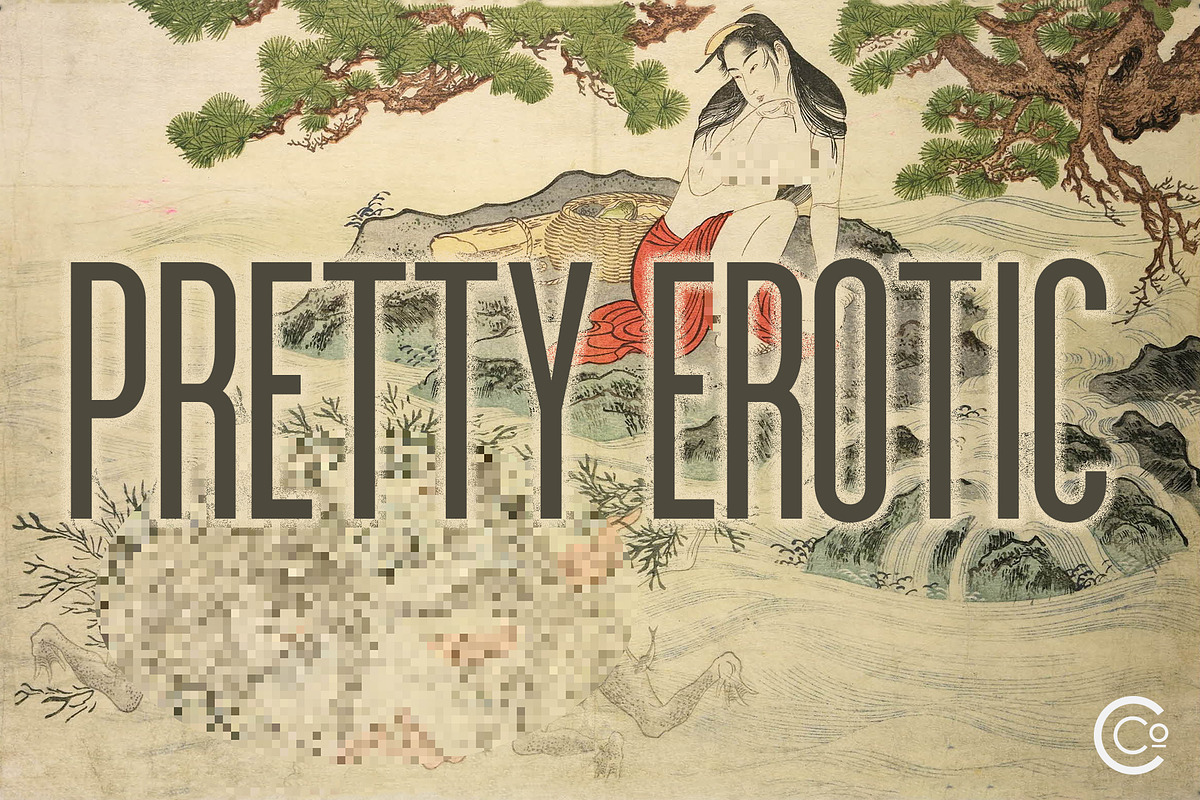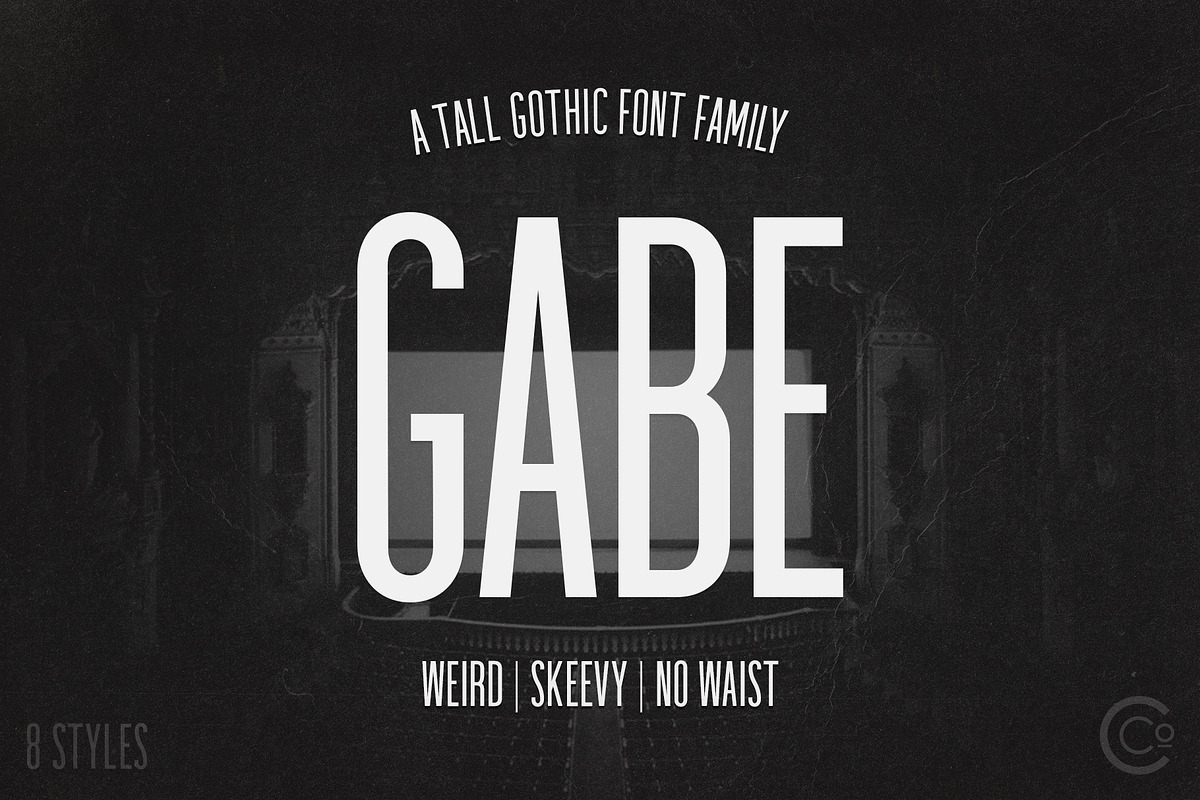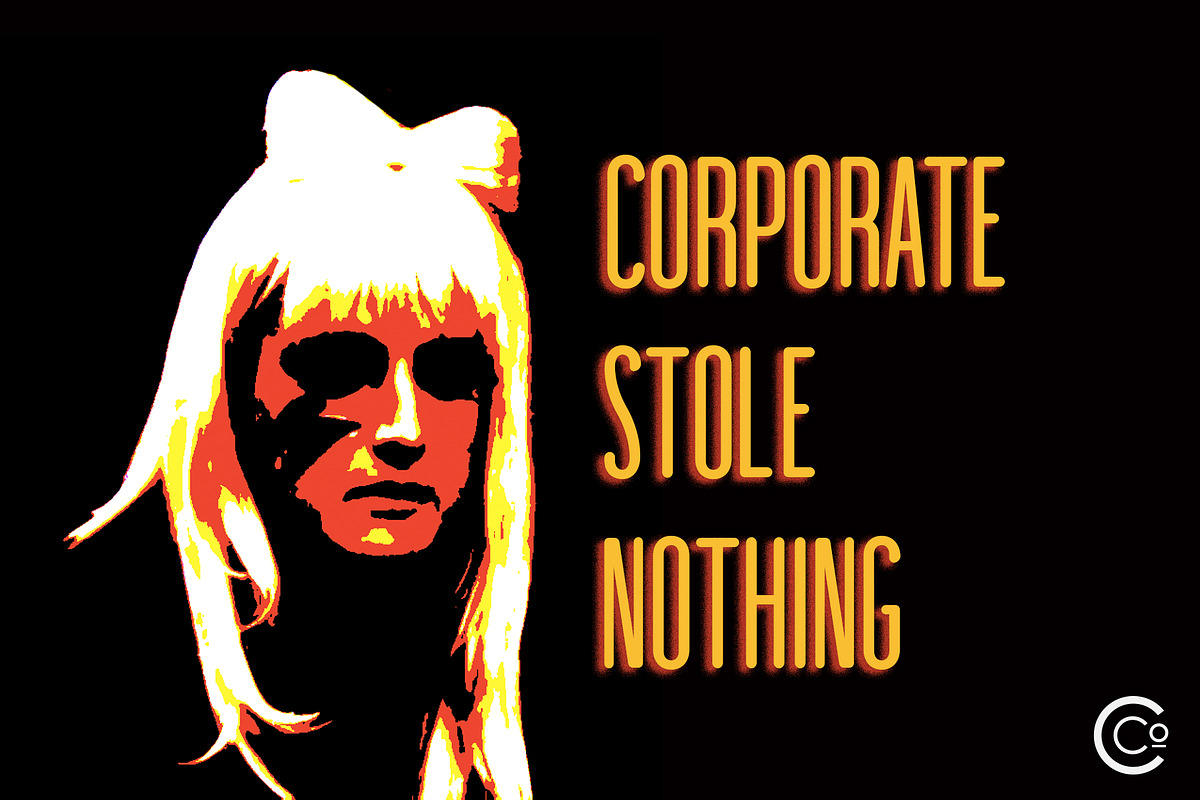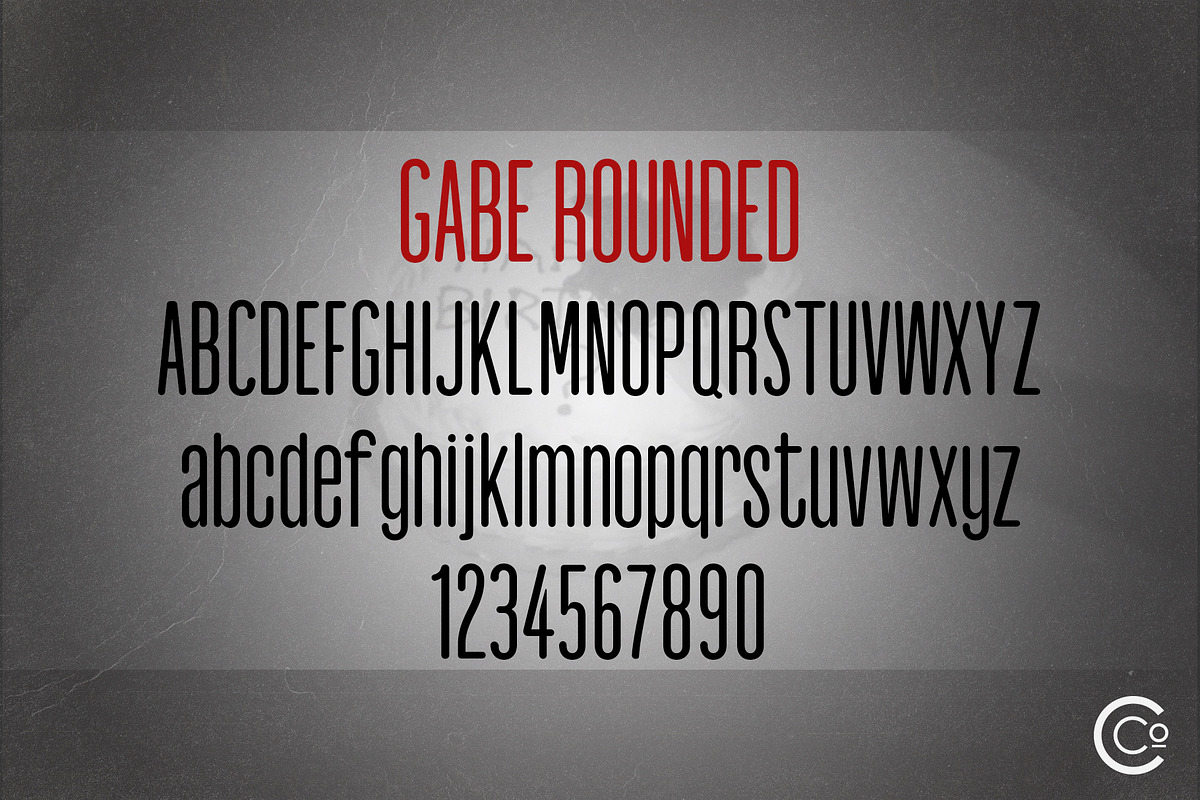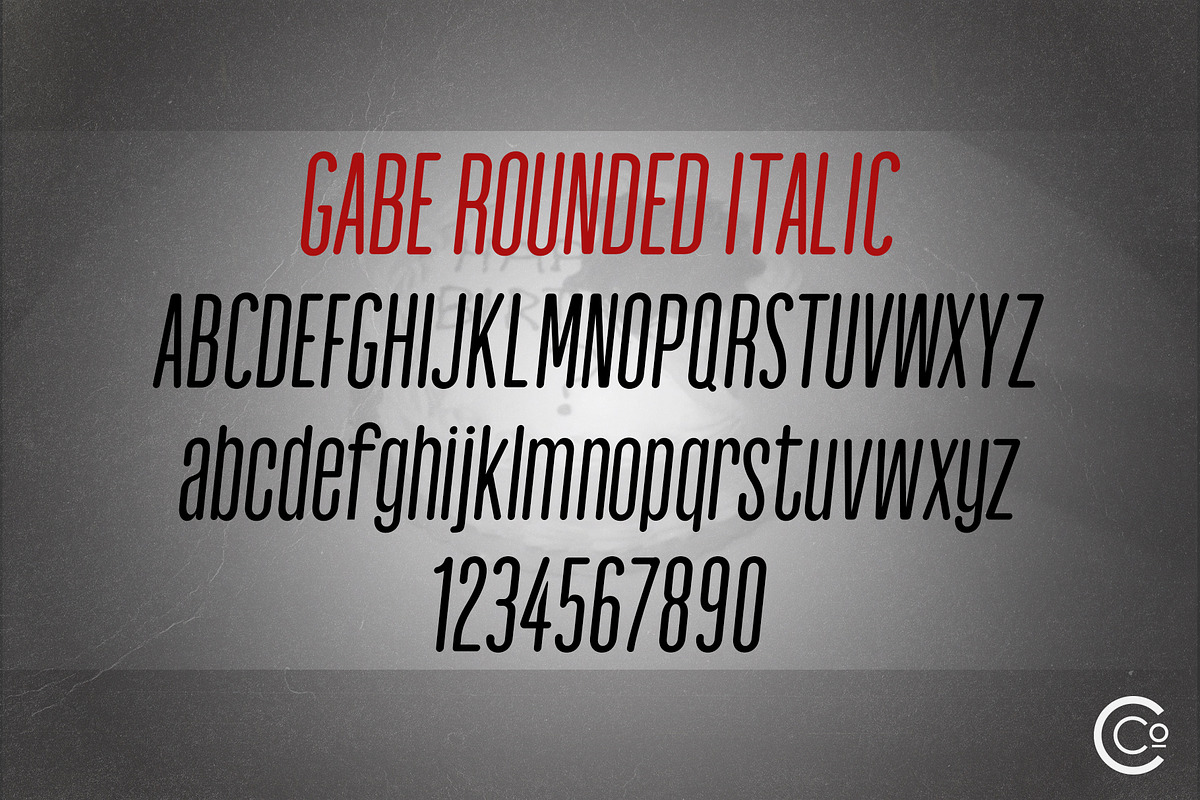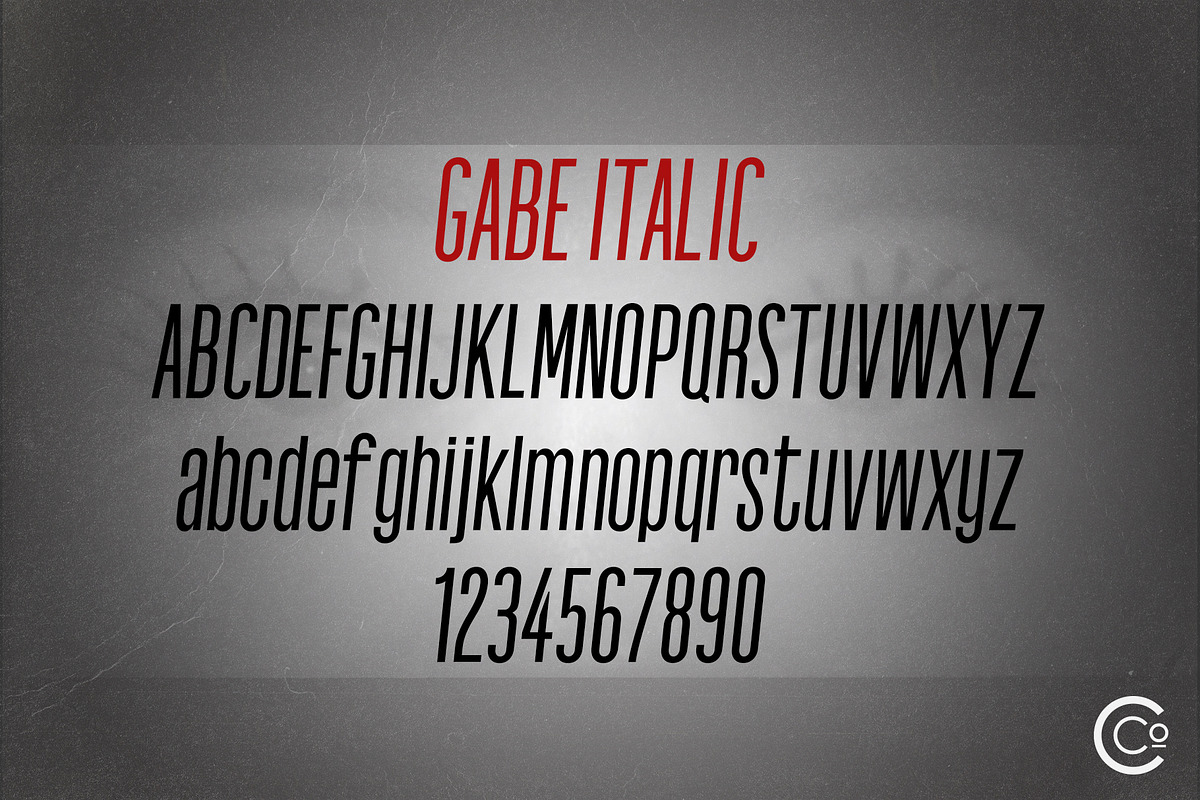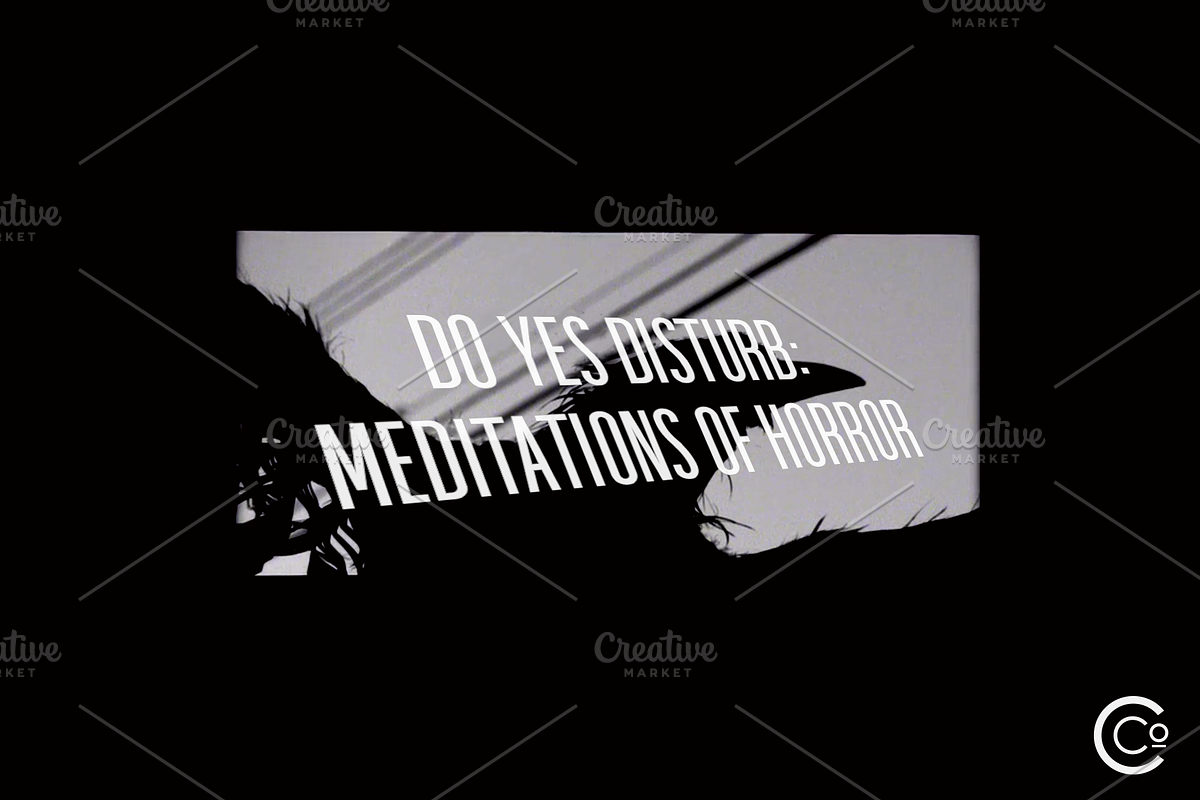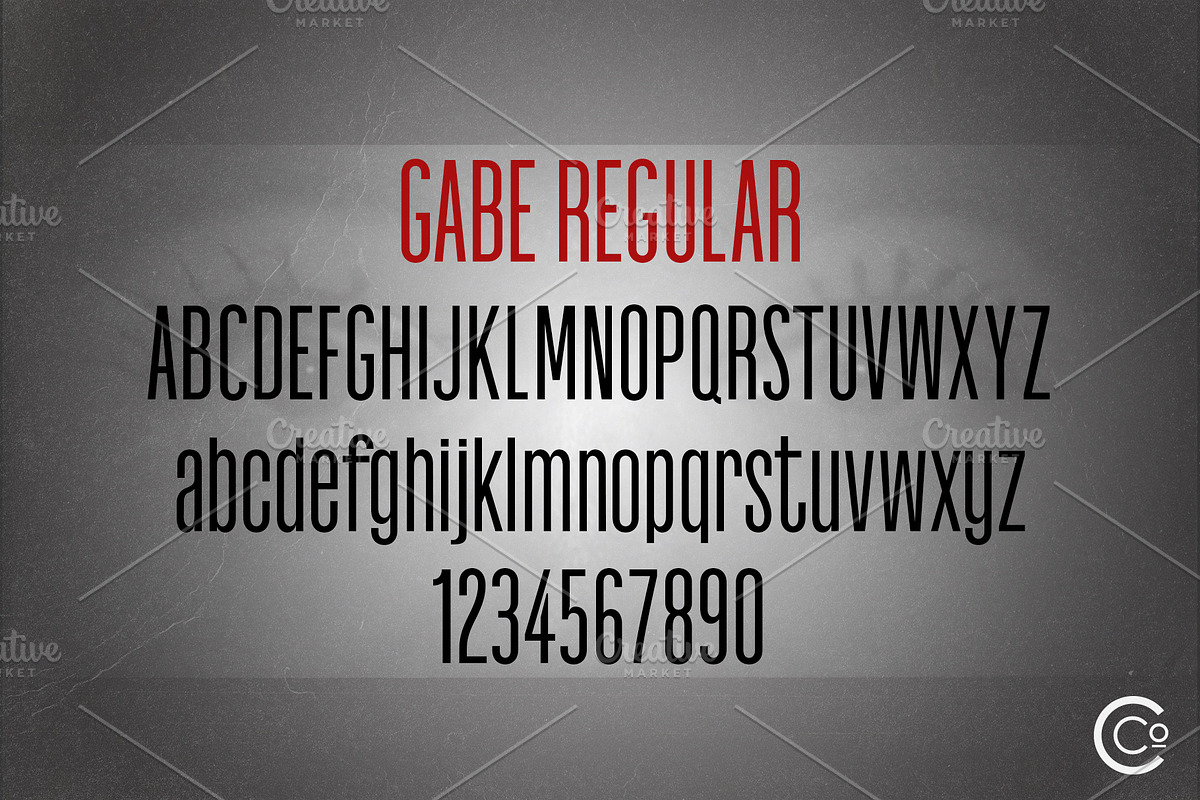
Gabe Sans - Tall Gothic Font Family
Inspired by the gothic and the grotesque typefaces of the 19th & 20th century, GABE is a modern tall skeevy sans-serif typeface with no waist. Designed for optimum legibility, its clean, geometric look is perfect any project!
The Gabe Family Typeface includes:
- The Gabe Family Typeface includes: Regular Italic Rounded Italic Rough Rough Italic Soft Soft Italic.